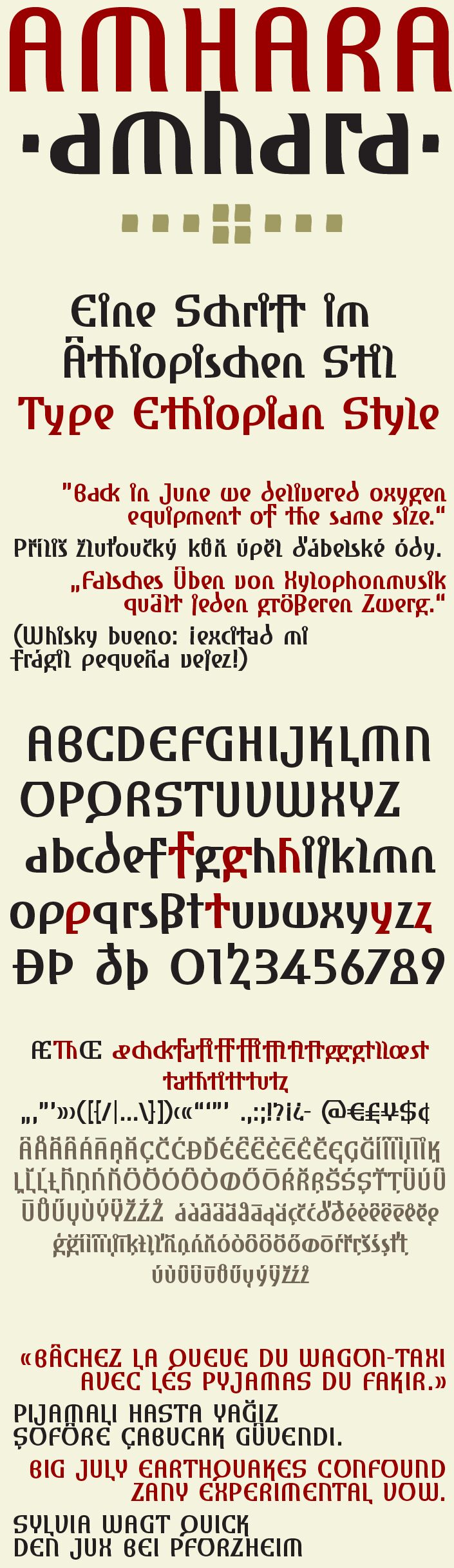
Amhara Reduced by Ingo Zimmermann is a free decorative display font with an exceptionally tall, compressed silhouette. Its narrow letters mix broad vertical strokes with fine crossbars and tightly drawn curves, and some forms taper toward the baseline. The exaggerated height is the main event.
A fashion poster is its clearest setting, with the compressed forms also suiting music packaging, club flyers, and experimental magazine covers. The font is most convincing when typography itself becomes the poster image, turning a name or event title into a dense vertical pattern with sharp shifts between broad strokes and delicate joins.
An experiment: a Latin alphabet modeled on the Ethiopian Ge'ez script.
Amhara was created by adapting typical Amharic forms to the Western European alphabet. Nearly all the formal characteristics of Ge'ez could be transferred to the lowercase letters.
Ethiopian script is characterized by emphasized expanded vertical strokes resulting from the horizontal position of the pen. The most frequent form is the open bow at the bottom. The symmetrical bowl at the transition from expanded to light and back to expanded strokes is another defining feature. Semitic scripts also contain many forms of commas, serifs, rings, and other additional elements. These diacritic marks add vowel sounds to the 28 basic consonant characters, resulting in 276 different syllable characters. This range of forms makes it possible to assemble components for European characters.
Some forms hardly ever appear in Ge'ez: the individual straight stroke, as in I, and the diagonal stroke from the upper right to the lower left, which appears only in Z. All Amharic characters contain at least an indication of a stroke from the upper left and a small downstroke at the bottom toward the right. Amhara retains this direction of movement to a great extent.
Amhara reduced